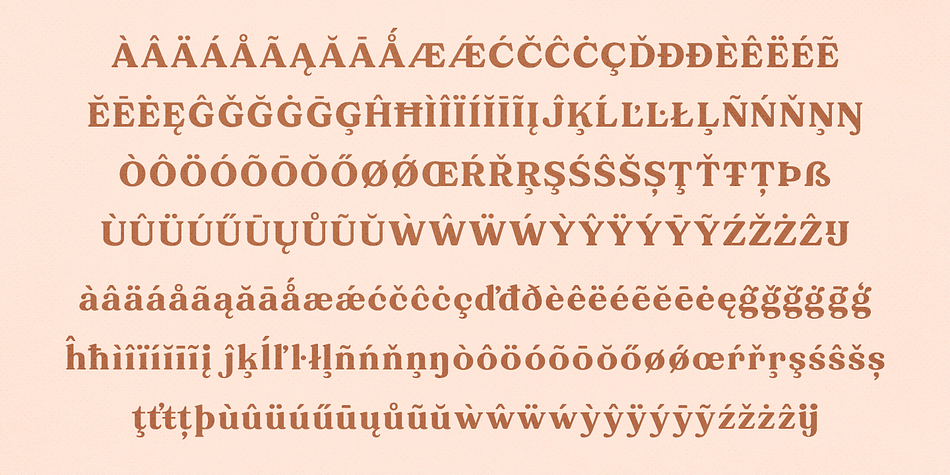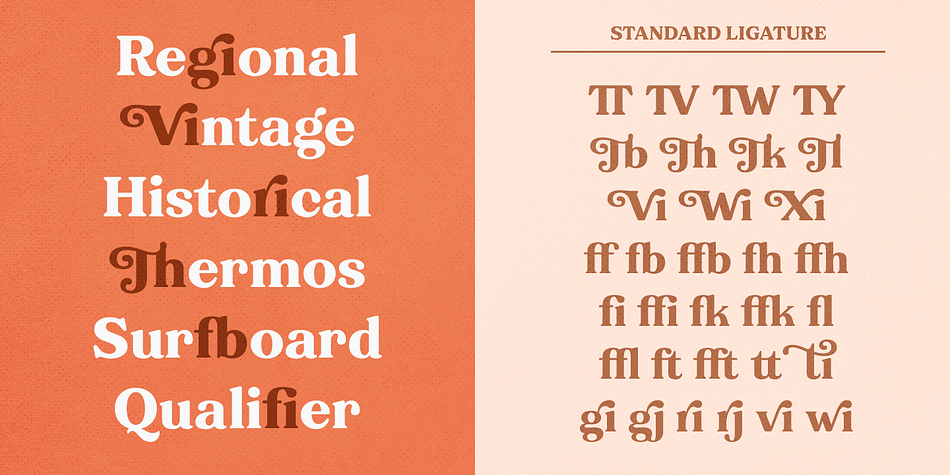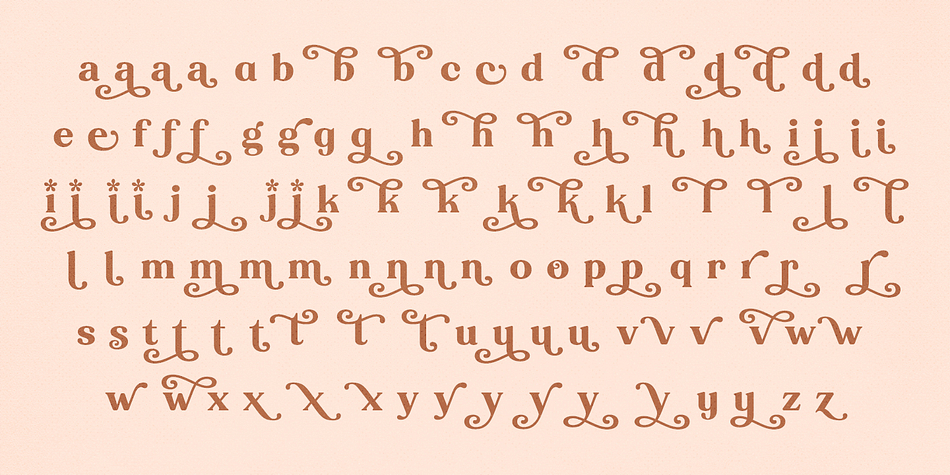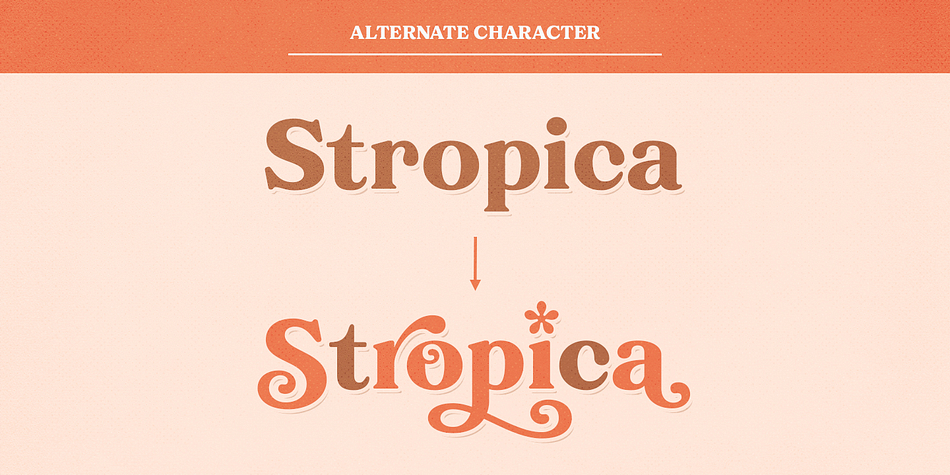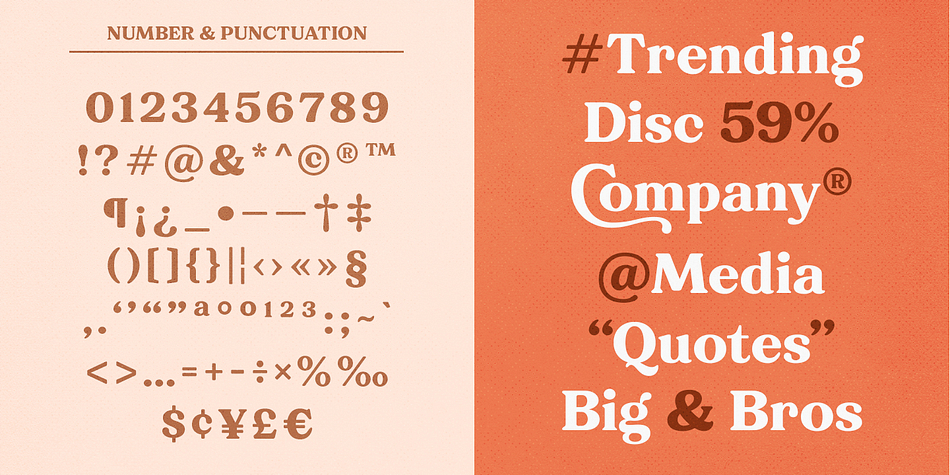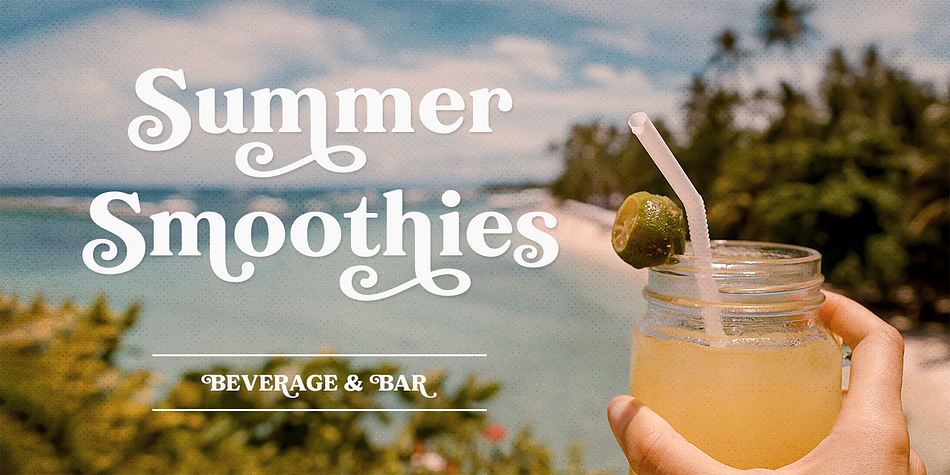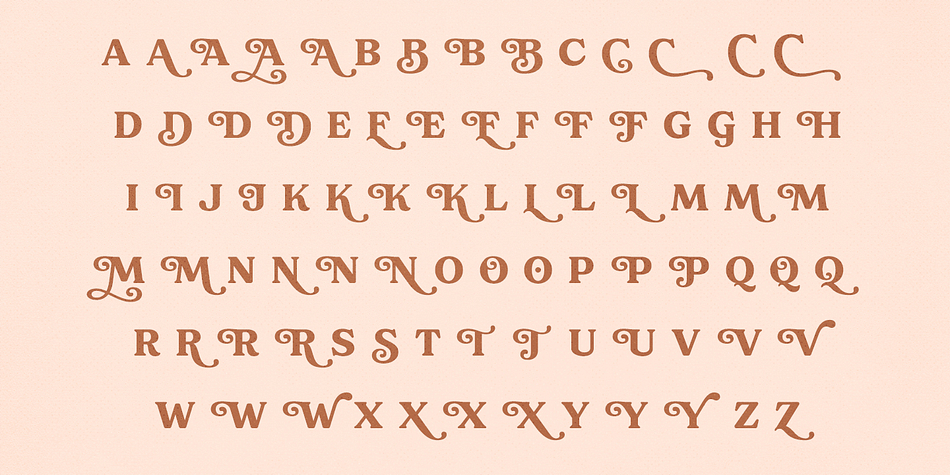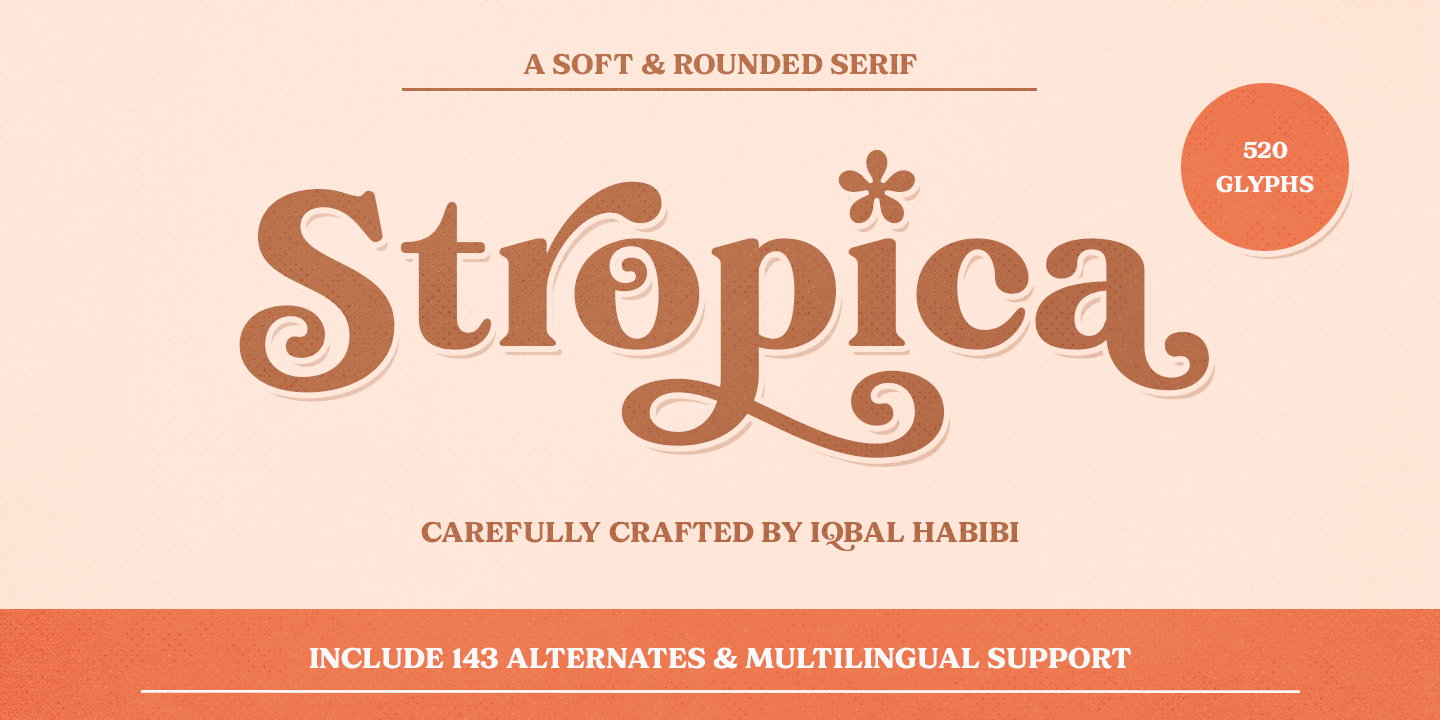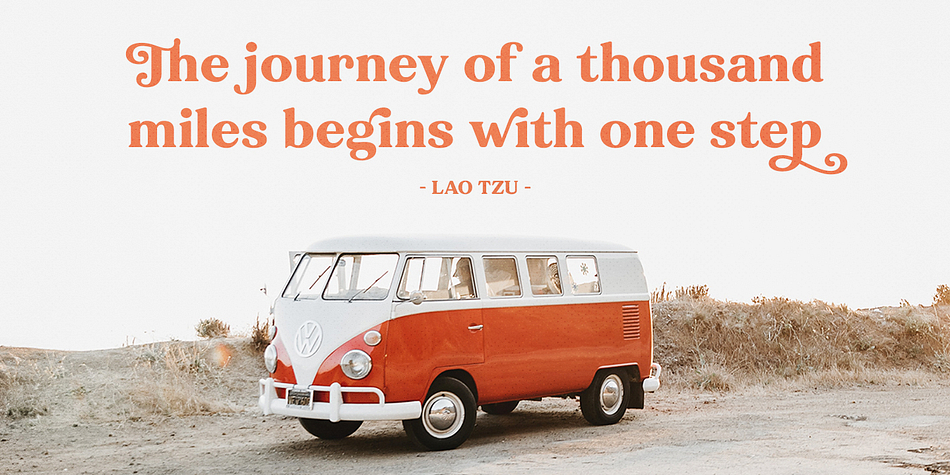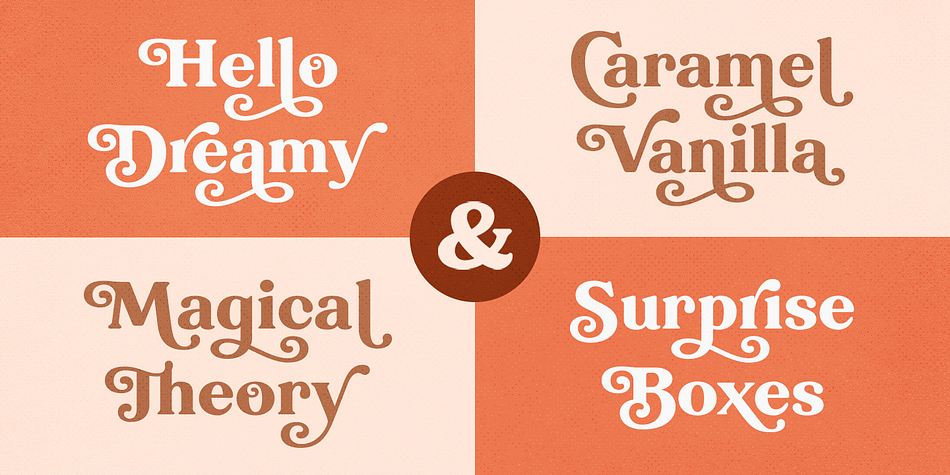
Stropica
Designed by Iqbal Habibi, Stropica is a display serif font family published by Iqbal Habibi.
Stropica is a soft and rounded display serif typeface that will bring retro vibes to the modern era. Stropica has 520 glyphs and 143 alternate characters that will make your design more elegant and support Latin Extended Language. Stropica perfectly suited for Headlines, Logotypes, Titles, Packaging Designs, Quotes, and other graphic design projects.